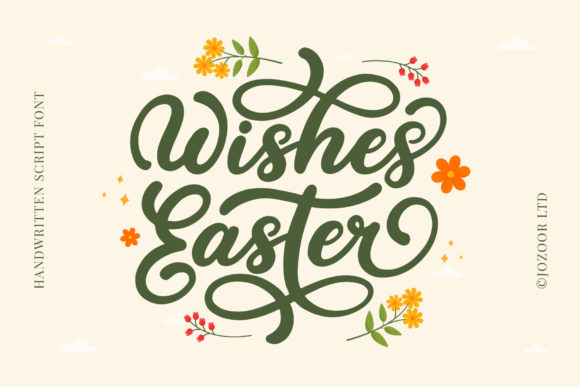
Introducing the stunning Wishes Easter Font! A perfect script font for your beauty brand that is sure to captivate your audience. This delicate and vintage font is designed by Jozoor, a talented designer who created a masterpiece that you won't want to miss out on.
The Wishes Easter Font is a beautifully flowing script font that has an elegant and sophisticated touch, making it perfect for any beauty brand. Its well-balanced characters and stylish design make it the perfect choice for any design project that requires a touch of beauty and class.
One of the most unique features of the Wishes Easter Font is its PUA encoding, which allows you to easily access all the glyphs and swashes. This means that you can customize the font to your heart's content and create a truly unique design.
Whether you are designing a logo, creating a product label, or working on a social media post, the Wishes Easter Font is the perfect choice. Its vintage charm and delicate style will add a touch of elegance and sophistication to any design project.